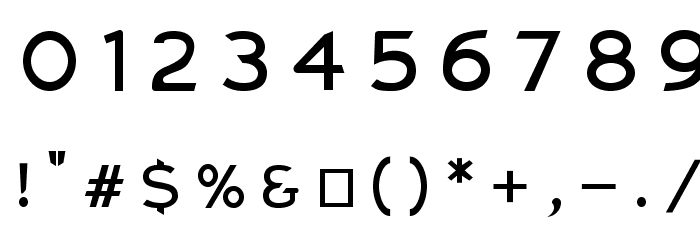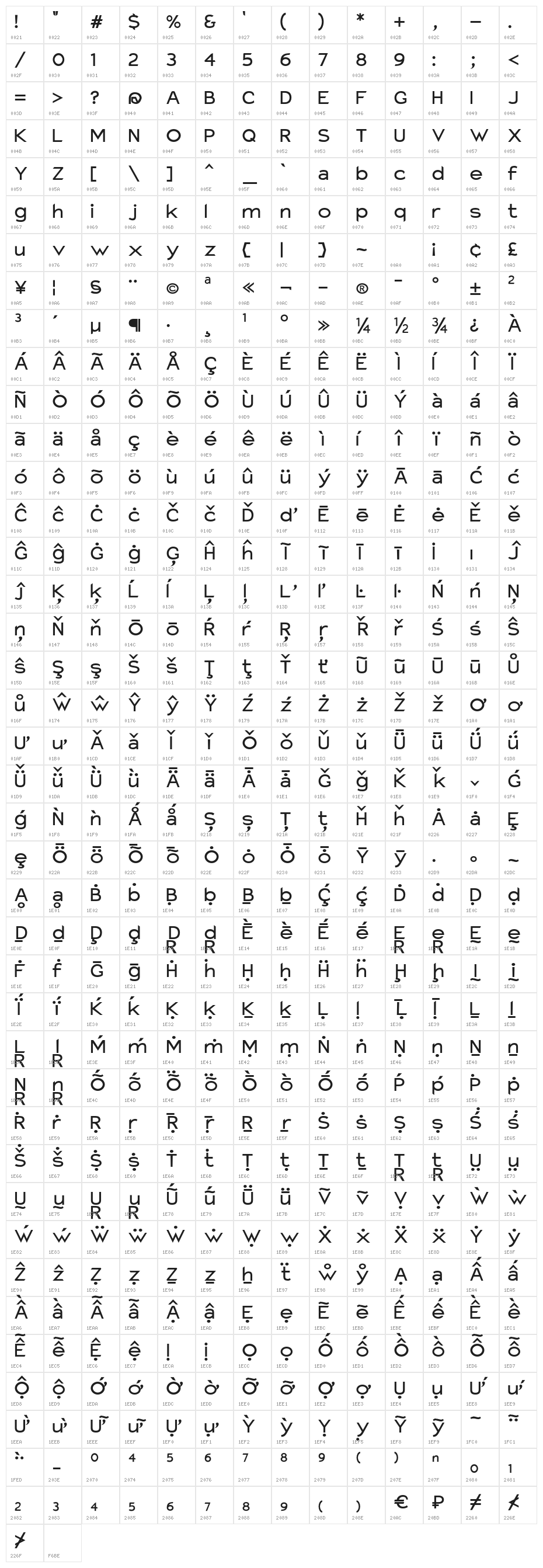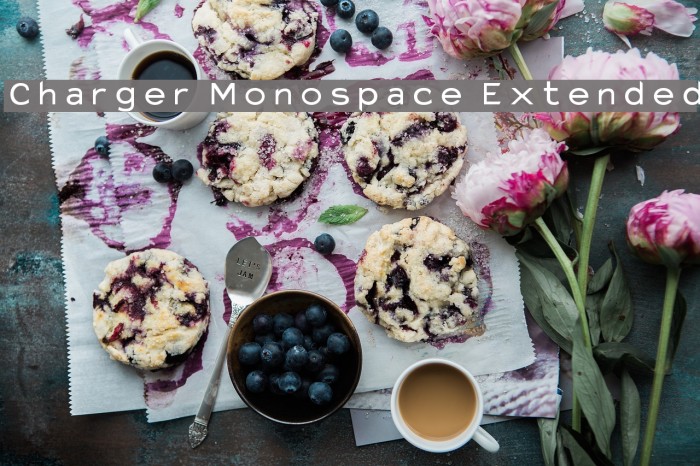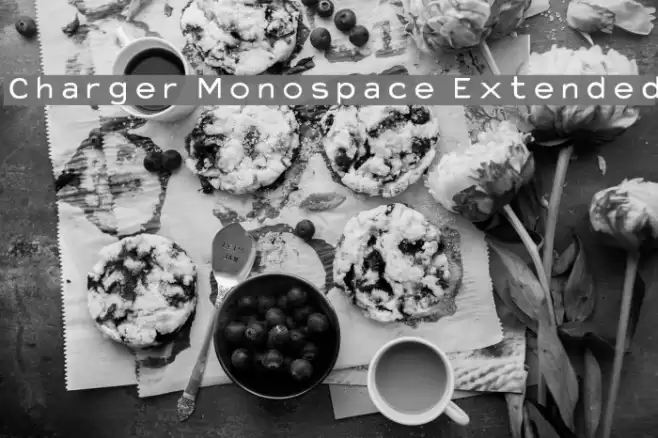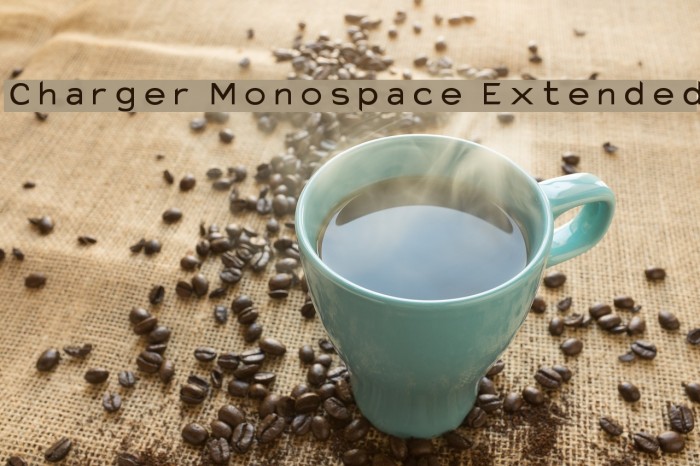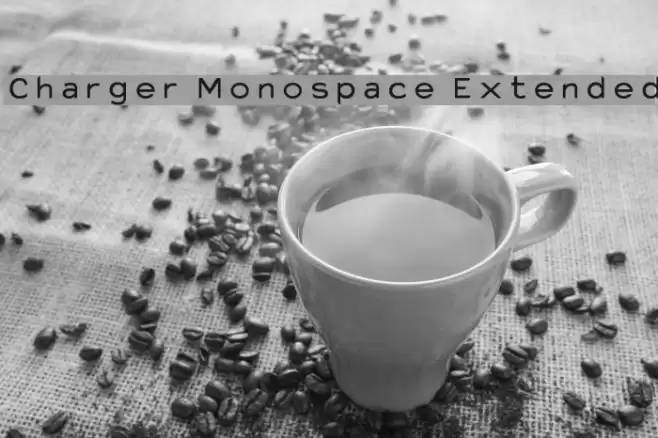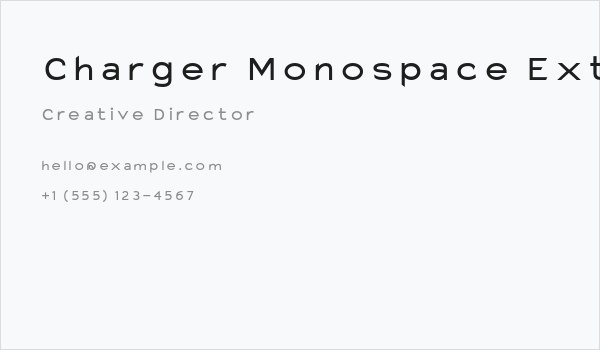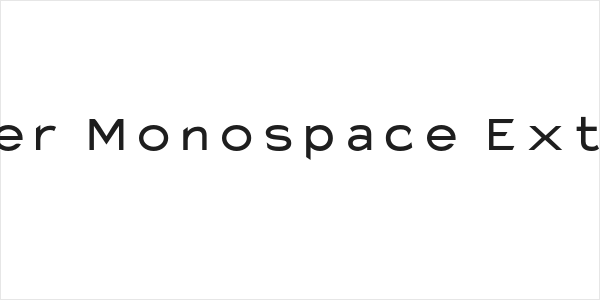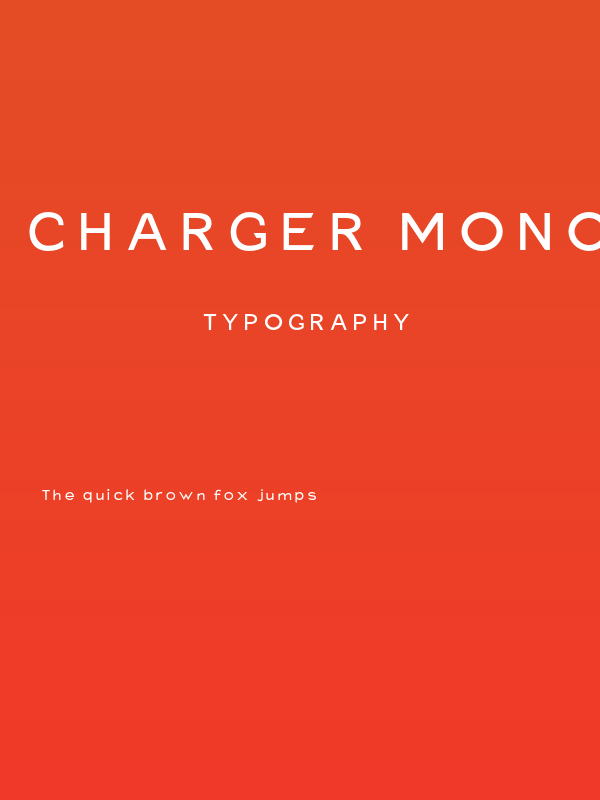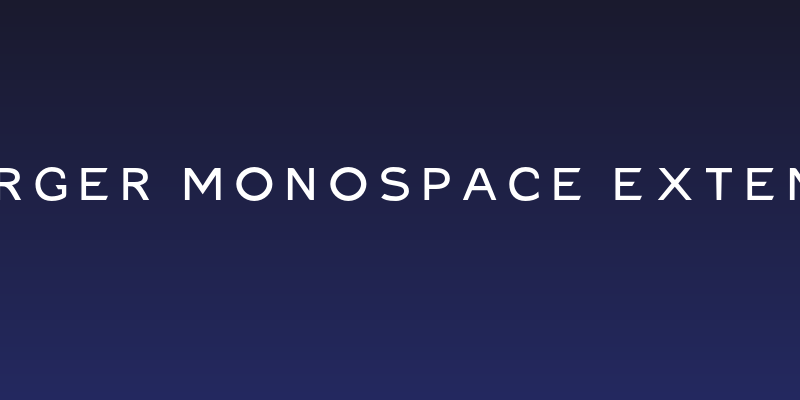
Charger Monospace Extended Font
Charger Monospace Extended Description
This font is a clean and modern monospace typeface with an extended width. It features uniform character spacing, making it ideal for coding and technical documentation. The characters are well-defined with a consistent stroke weight, providing excellent readability. The design is minimalist, with a geometric influence that gives it a contemporary feel. The uppercase and lowercase letters are balanced, and the numerals are clear and distinct. Special characters are included, maintaining the font's cohesive style.
| Use Case | Coding, Technical documentation |
| Proposed Projects | Ideal for coding, technical documentation, and any project requiring precise alignment and readability. |